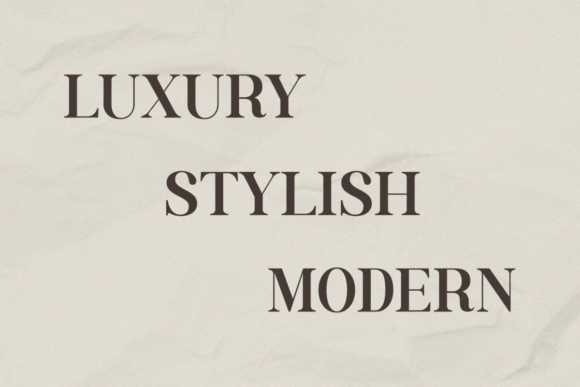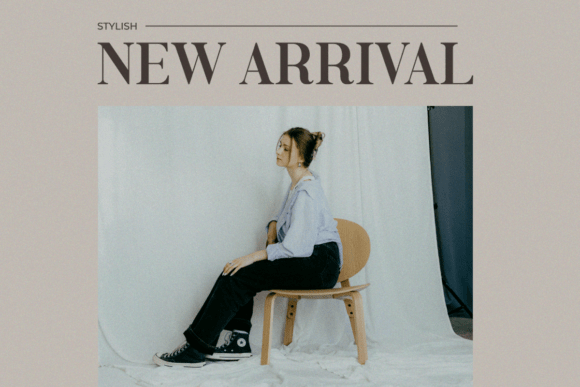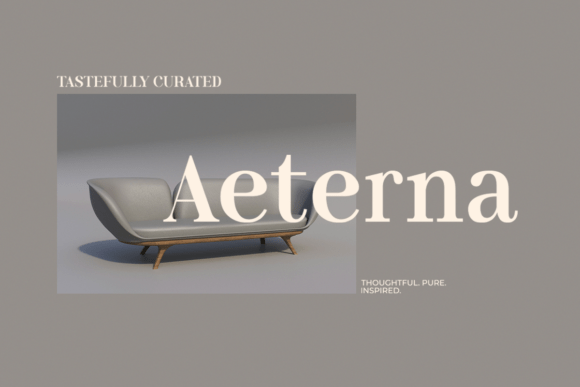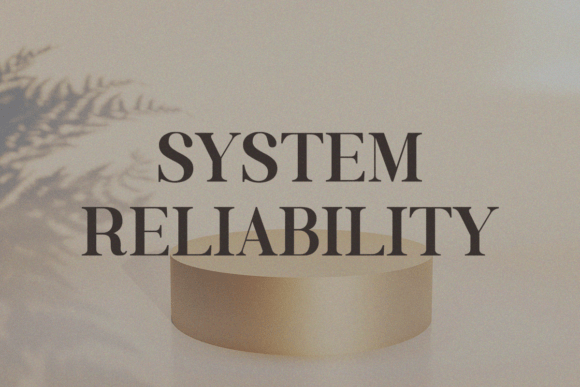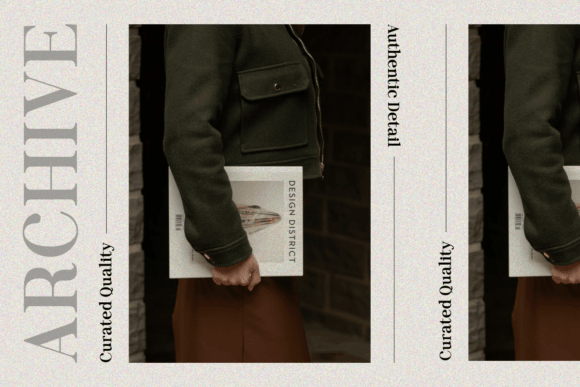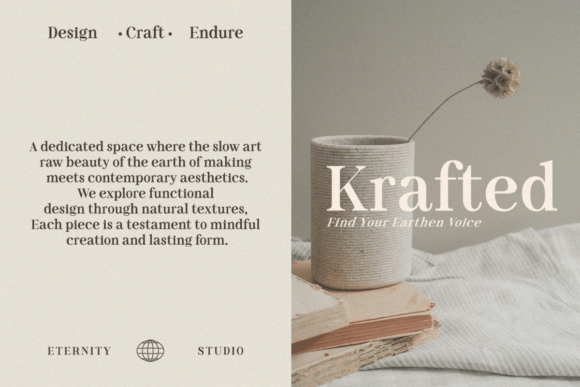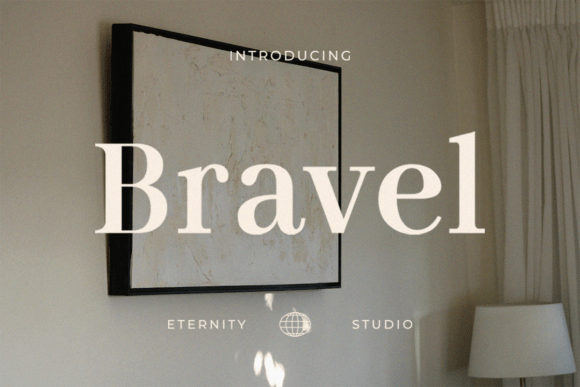
Bravel Font: The Timeless Choice for Sophisticated Design
In the world of typography, a font can make all the difference in conveying a message with clarity, trust, and elegance. Bravel Font is a timeless and authoritative transitional serif typeface that strikes the perfect balance between classic structure and approachable, clean, and highly legible presence. This excellent serif font exudes reliability and professional polish, making it a superb choice for corporate branding, extensive body copy, and sophisticated publication design.
The Characteristics of Bravel Font
The Bravel typeface is designed to maintain clarity through carefully crafted letterforms and a consistent weight that performs well at both display sizes and in smaller text blocks. This makes it perfect for a wide range of applications, including annual reports, book typesetting, and high-end stationery. The font’s sleek and refined letterforms ensure that your message is conveyed with understated elegance, making it an ideal choice for designers and crafters who want to create sophisticated and professional-looking designs.
Bravel Font is a versatile typeface that can be used for a variety of design needs. Whether you’re crafting a distinctive logo, designing a premium magazine layout, or creating a stunning website header, this font delivers sophistication and elegance. Its flawless compatibility across different platforms and devices ensures that your design looks great everywhere, making it a reliable choice for designers and crafters.
Why Choose Bravel Font?
So, why choose Bravel Font for your design needs? Here are just a few reasons:
- Timeless and authoritative design: Bravel Font has a classic structure that never goes out of style, making it a great choice for designers who want to create timeless designs.
- Highly legible: The font’s clean and refined letterforms ensure that your message is conveyed with clarity and ease, making it perfect for body copy and extensive text blocks.
- Professional polish: Bravel Font exudes reliability and professional polish, making it a superb choice for corporate branding and sophisticated publication design.
- Versatile: The font can be used for a wide range of applications, from logos and magazine layouts to website headers and high-end stationery.
Applications of Bravel Font
Bravel Font is perfect for a wide range of design applications, including:
- Corporate branding: The font’s professional polish and timeless design make it a great choice for corporate branding and identity design.
- Magazine and publication design: Bravel Font is perfect for designing premium magazine layouts, newspapers, and other publications.
- Book typesetting: The font’s highly legible and clean design make it a great choice for book typesetting and publishing.
- Logo design: Bravel Font can be used to create distinctive and sophisticated logos that convey a message of trust and elegance.
- Website headers and design: The font’s sleek and refined letterforms make it perfect for creating stunning website headers and designs.
In conclusion, Bravel Font is a timeless and authoritative transitional serif typeface that is perfect for designers and crafters who want to create sophisticated and professional-looking designs. Its highly legible and clean design, professional polish, and versatility make it a great choice for a wide range of design applications. Whether you’re crafting a distinctive logo, designing a premium magazine layout, or creating a stunning website header, Bravel Font delivers sophistication and elegance. So, why not give Bravel Font a try for your next design project?